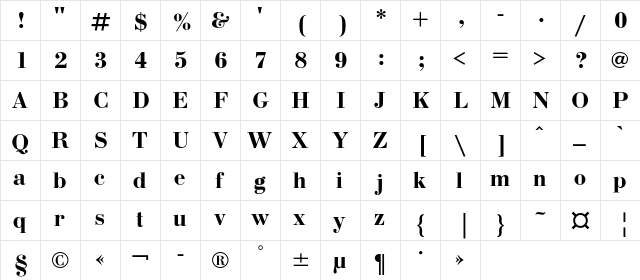
BodoniC Bold
Design Context for BodoniC Typeface
BodoniC is a composed and adaptable typeface that performs quietly and consistently across a wide range of design contexts. The heavy weight commands attention and anchors typographic hierarchies.
Pro Tip: Pair BodoniC with a font of contrasting weight or personality to build a more expressive typographic hierarchy.